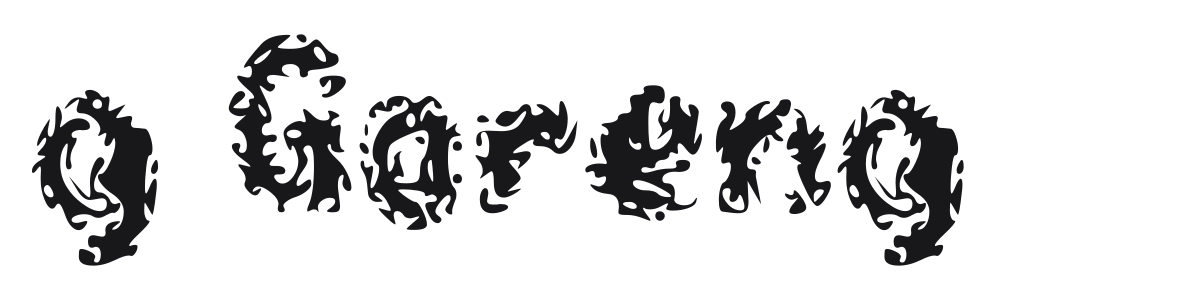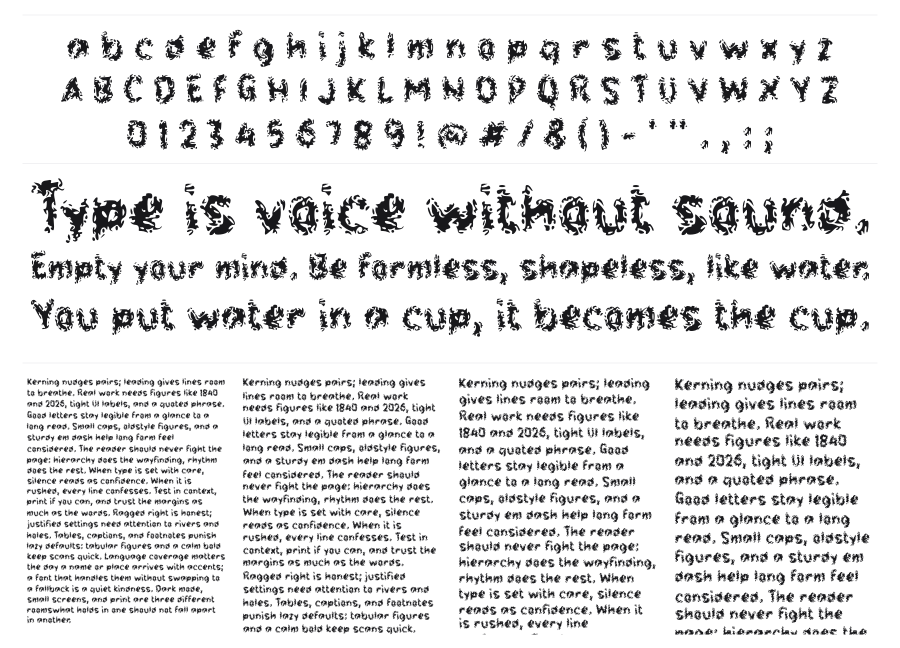
g Goreng
g GorengLicense is a wildly distressed display font where every character is overtaken by explosive splatter and erosion effects. The heavy underlying strokes are almost entirely fragmented by organic blob-like textures, creating a raw, chaotic energy. It thrives on posters, album covers, and any context that needs visceral visual noise.